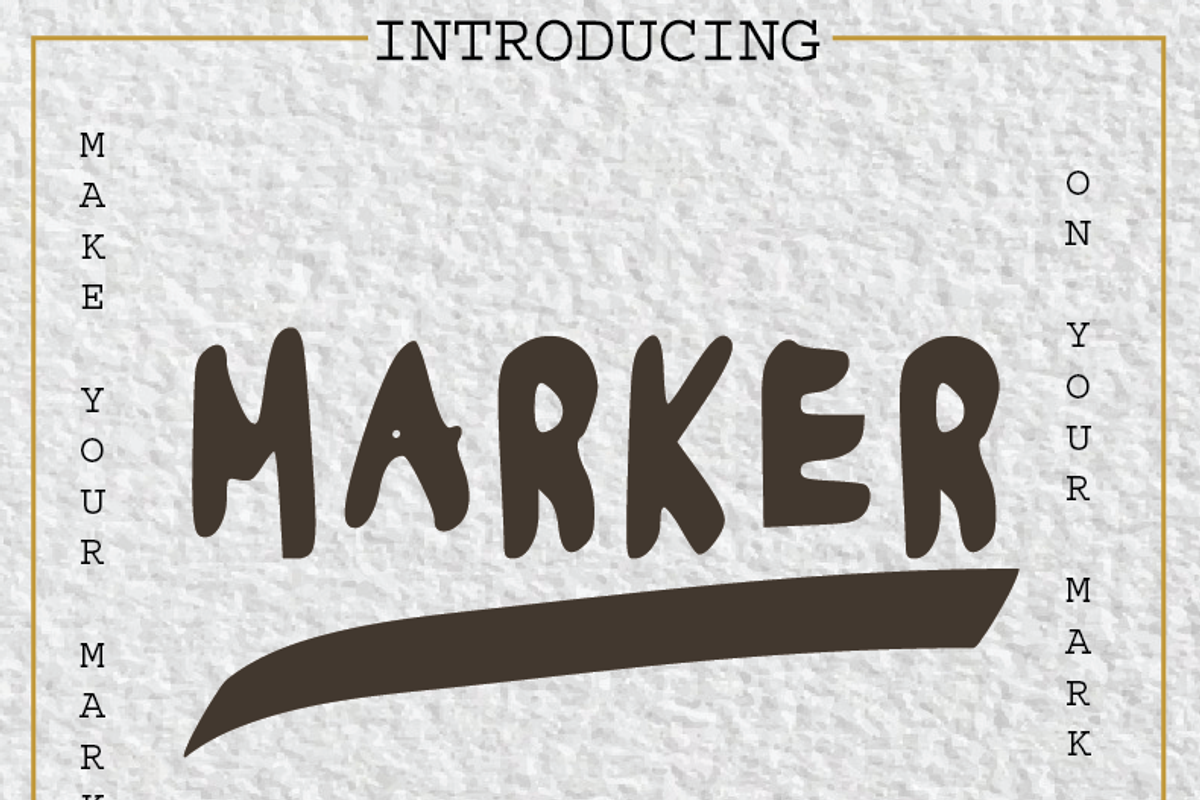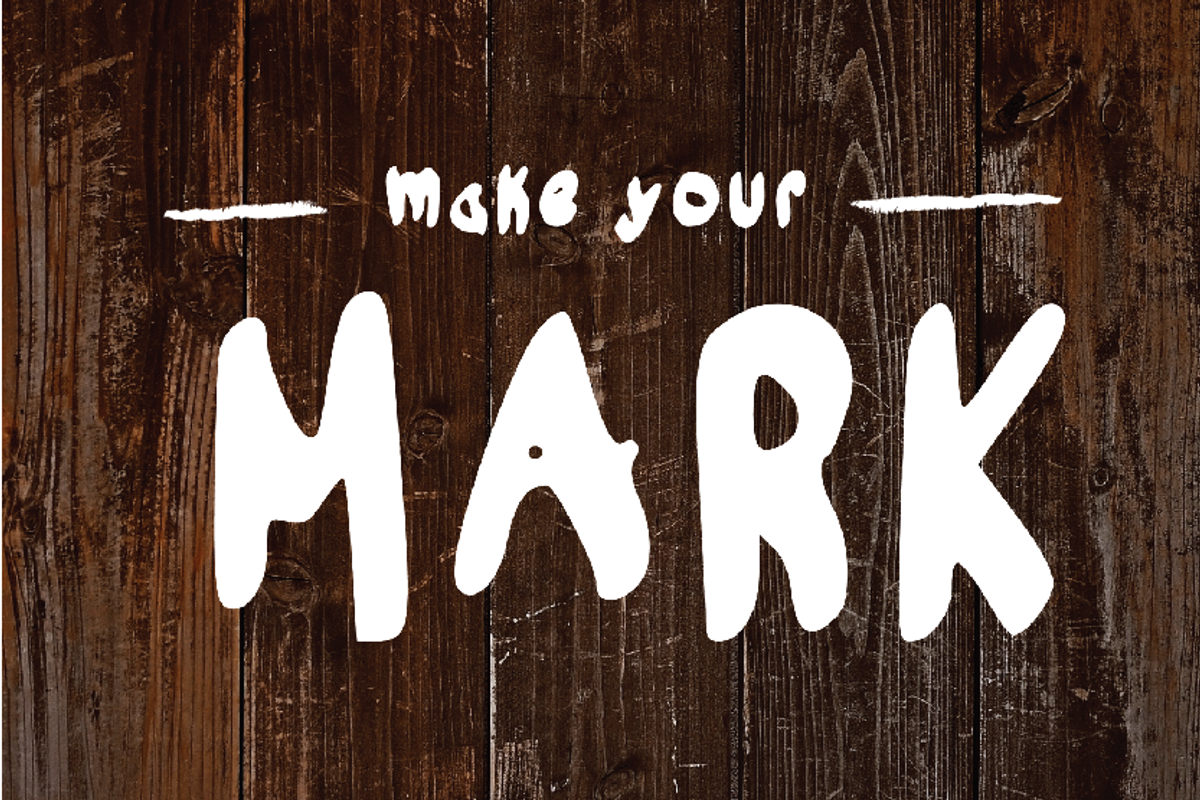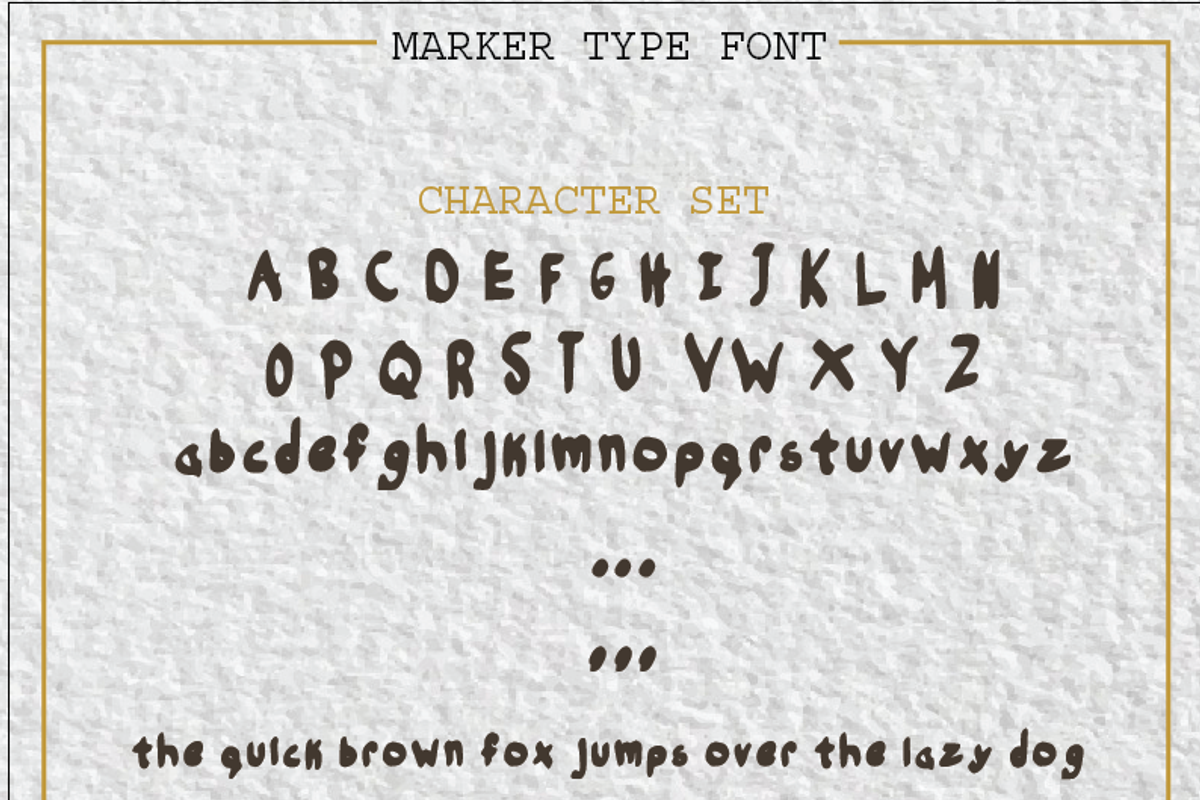
MAKE YOUR MARK FONT
MAKE YOUR MARK FONT by MVMG is a font selected for branding, posters, packaging, typography.
- The Marker font includes a full set of capital and lowercase letters.
Why MAKE YOUR MARK FONT is worth a look
MAKE YOUR MARK FONT by MVMG fits naturally into Branding, posters, packaging, typography.